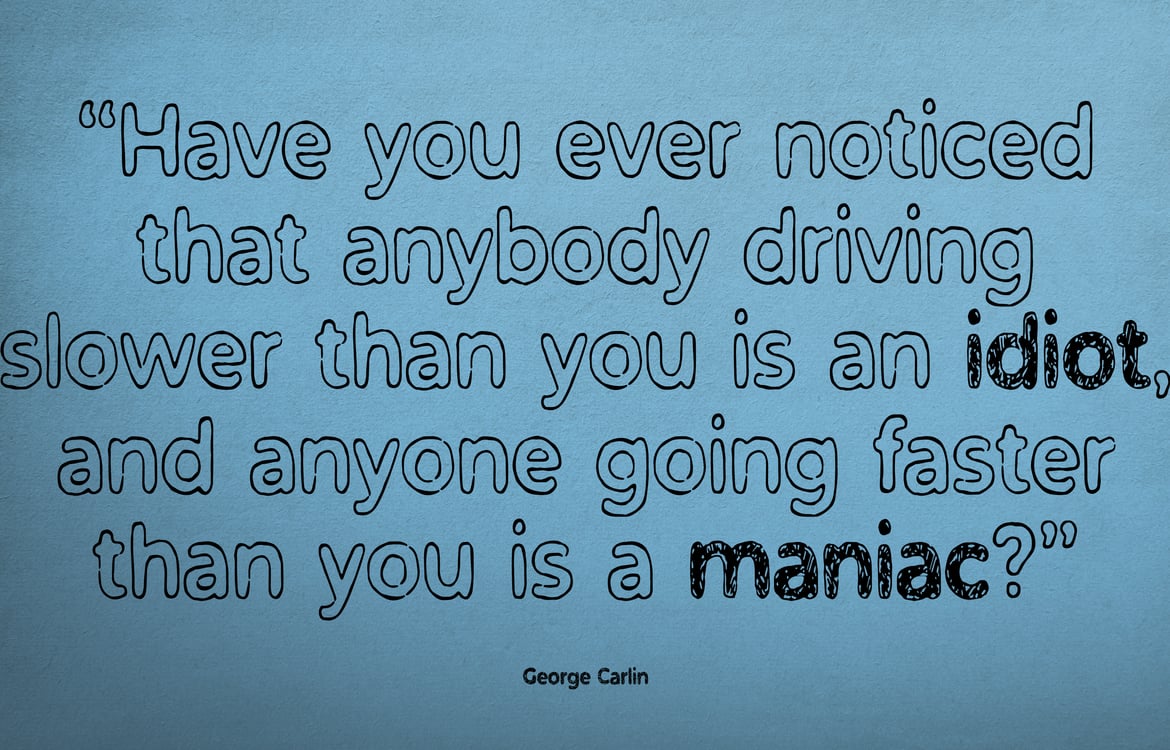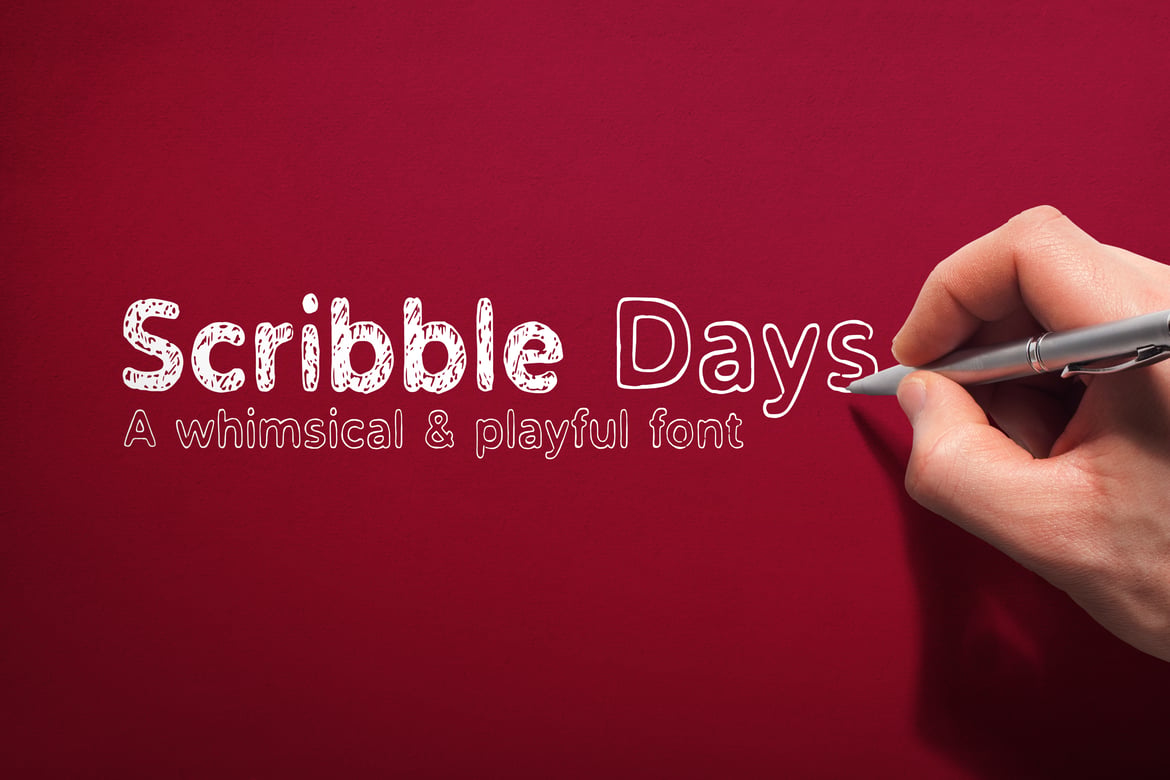
Scribble Days Font
Scribble Days Font is a whimsical and playful doodle font that captures the essence of carefree creativity. This funky typeface exudes a sense of fun and spontaneity, making it perfect for projects that call for a touch of charm and personality.
Ideal for everything from children’s books and art-related projects to casual branding and social media graphics. Use it to inject a sense of playfulness into invitations, posters, or any creative endeavour that celebrates spontaneity.